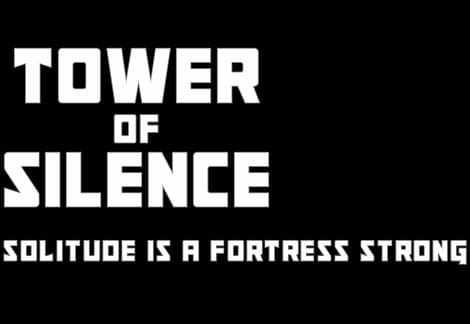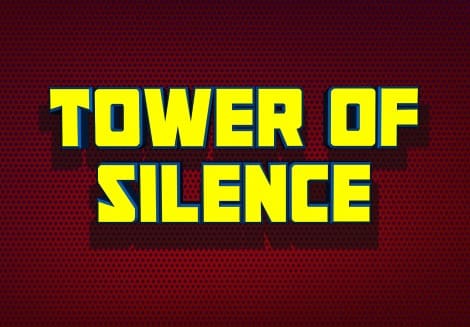
Tower Of Silence Font
Tower Of Silence Font, This bundle features strong, confident and powerful typefaces designed to work great with sports logos, club branding, apparel applications, labels and more.